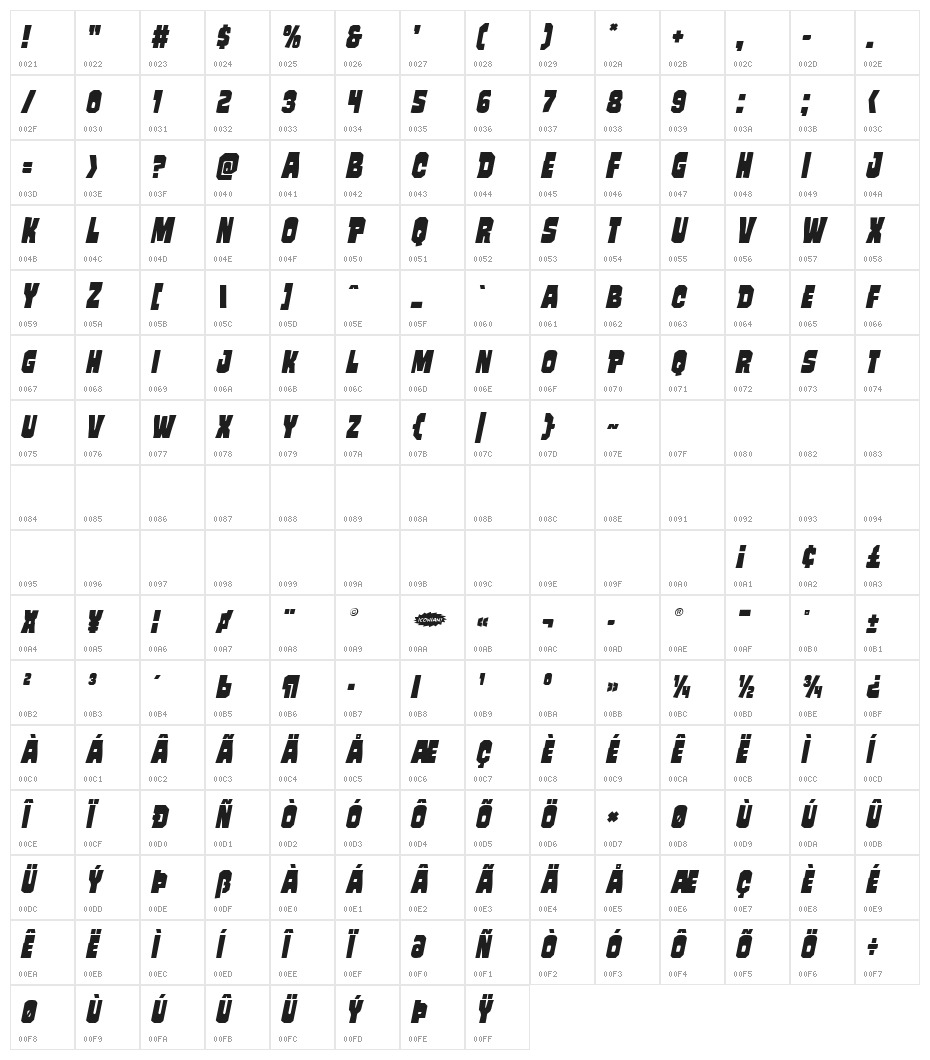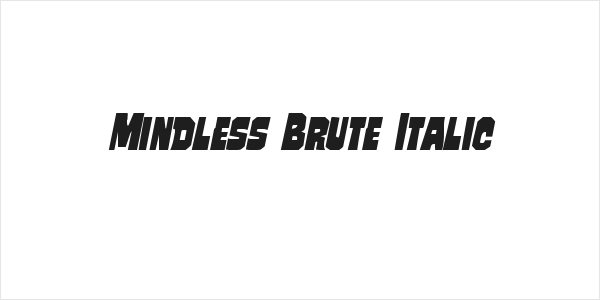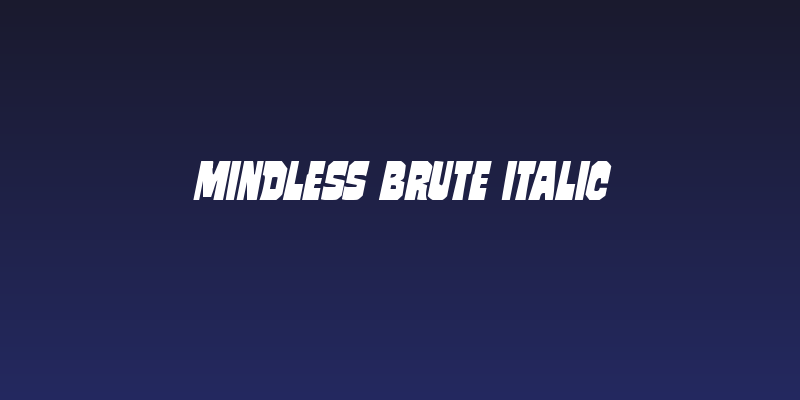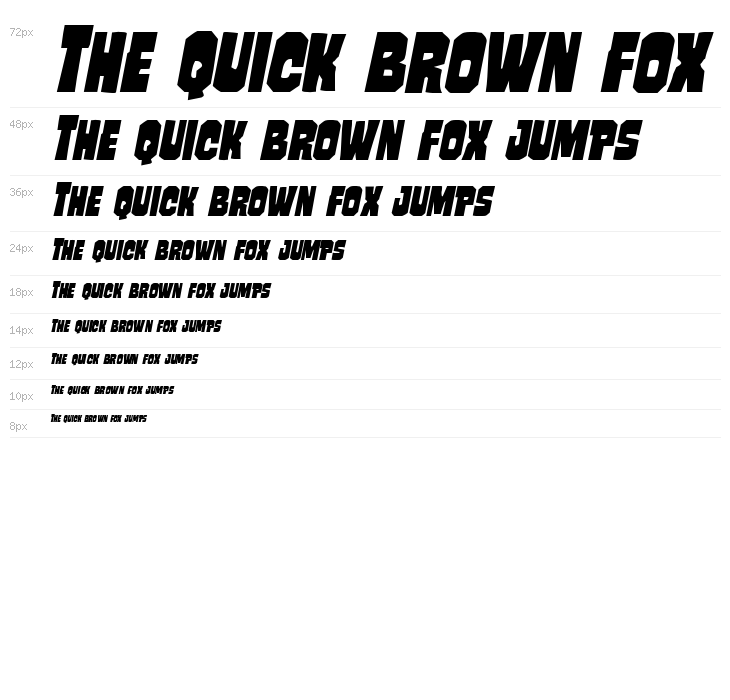
Mindless Brute Italic Font
Mindless Brute Italic Description
This font features a bold and aggressive style with strong geometric shapes and a slanted italic posture. The characters are heavily weighted, giving a sense of power and impact. The angular cuts and sharp edges contribute to its dynamic and forceful appearance. It maintains a consistent thickness throughout, with minimal contrast between strokes. The overall design is modern and assertive, suitable for making bold statements. The spacing between characters is tight, enhancing its compact and robust look.
| Proposed Projects | Ideal for sports branding, action movie posters, video game titles, and any project requiring a strong and impactful visual presence. |